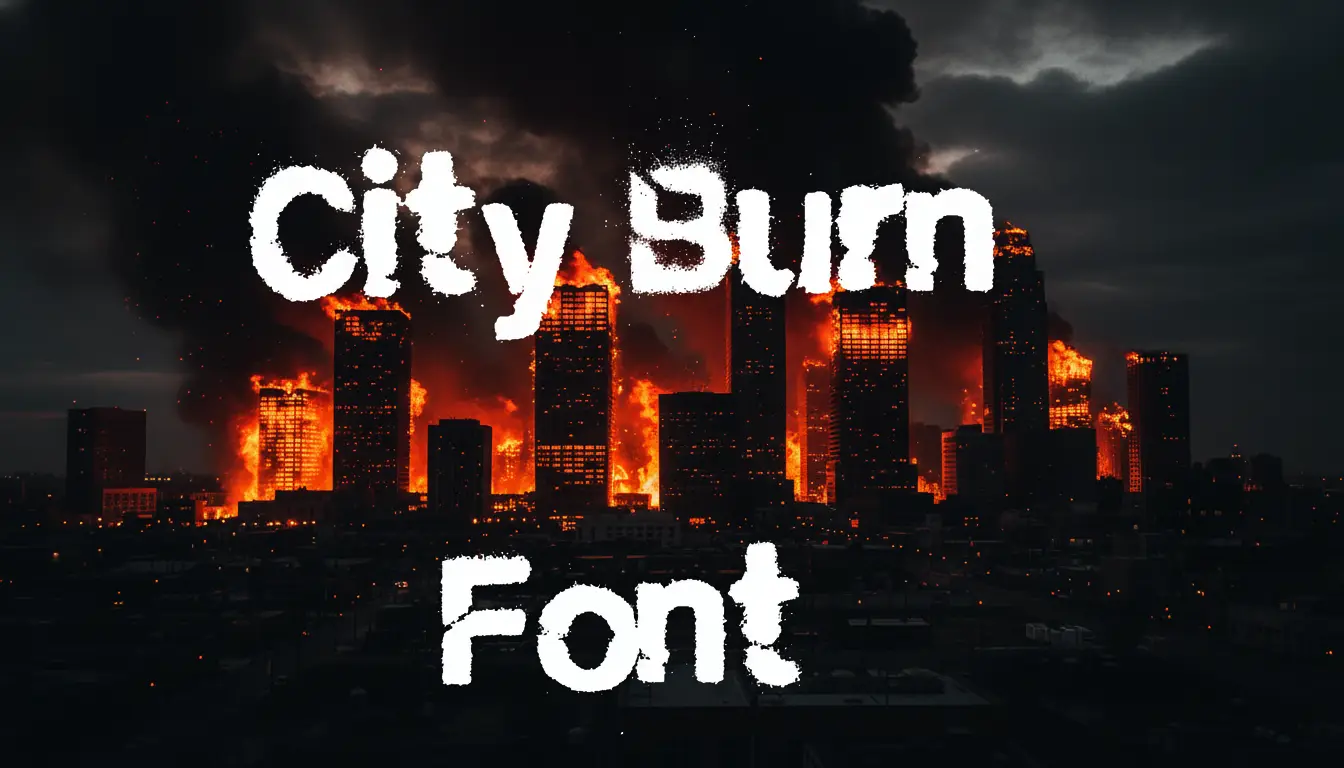
City Burn Font
City Burn
City Burn is a fancy font made by thibault dietlin/Alien Foundery. Bold and full of character, it's built to stand out rather than blend in. You can download it for free and test it with your own words in the preview above.
What You Can Type With City Burn
With complete upper and lowercase letters and all ten digits, City Burn is ready for real wording, not just a single headline. Everyday marks like &, !, ? and @ are there too. Thanks to its accented letters, it also works for Spanish, French, German, Portuguese and Italian, not just English.
Where City Burn Works Best
City Burn is a natural fit for posters, logos and eye-catching headlines. Use it for one standout word or headline and let simpler fonts handle the rest.
Does City Burn support accented letters?
Yes. City Burn includes the accented letters needed for Spanish, French, German, Portuguese and Italian, so it works for more than just English.